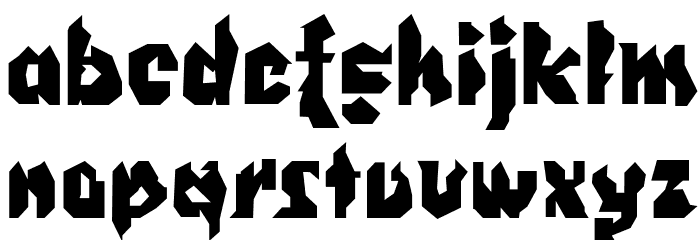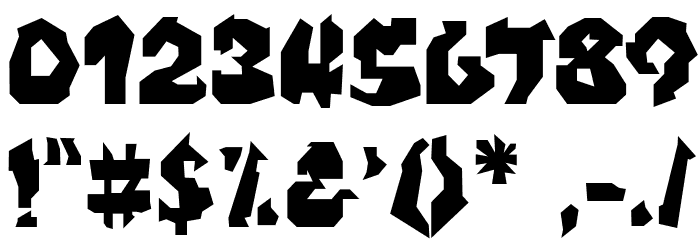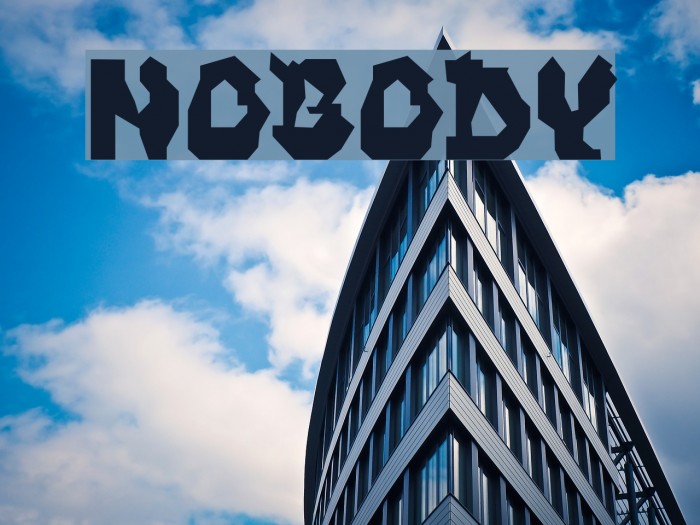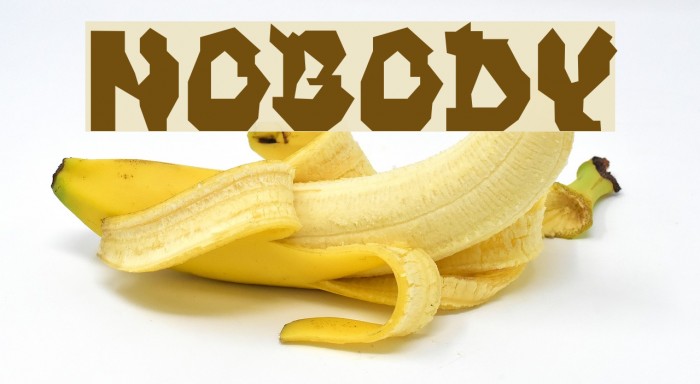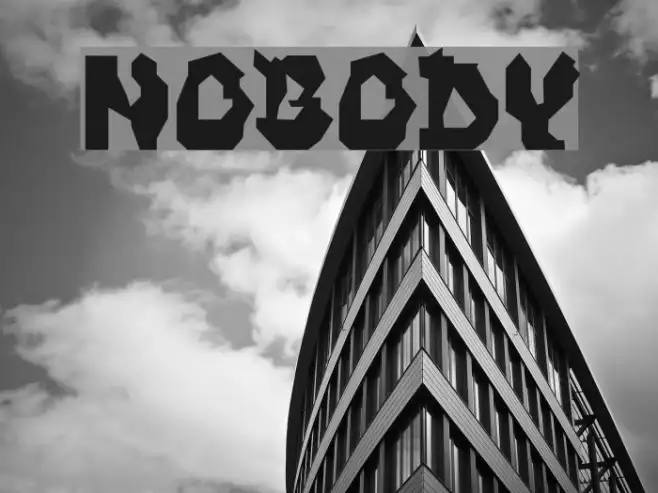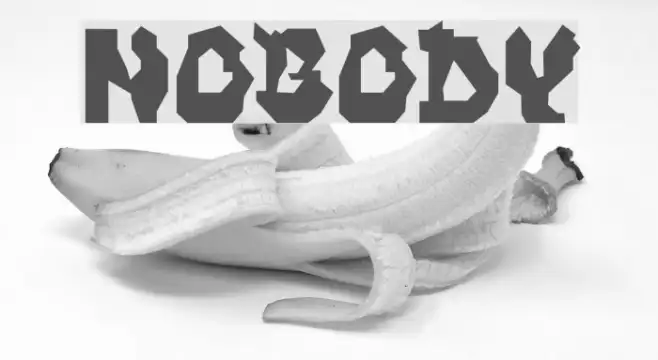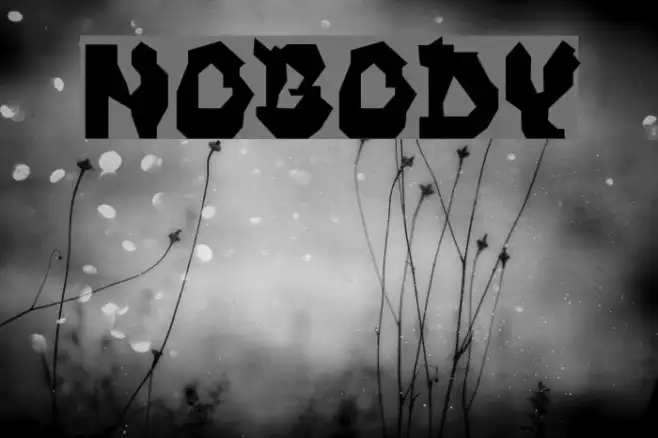
NOBODY Font
This font features a bold and angular design, characterized by sharp edges and geometric shapes. The uppercase and lowercase letters maintain a consistent style, with each character exhibiting a distinct, blocky appearance. The numbers and special characters follow the same aesthetic, ensuring uniformity across all glyphs. The font's unique style is reminiscent of a modern, digital interpretation of traditional blackletter typefaces, combining historical elements with a contemporary twist. Its strong visual impact makes it suitable for projects that require a striking and memorable typographic presence.
A bold, angular font with a modern twist on traditional blackletter styles.
- Proposed Projects: Ideal for branding, posters, album covers, and any design requiring a bold, impactful typeface.
- Category: Blackletter
- Character Spacing: Tight